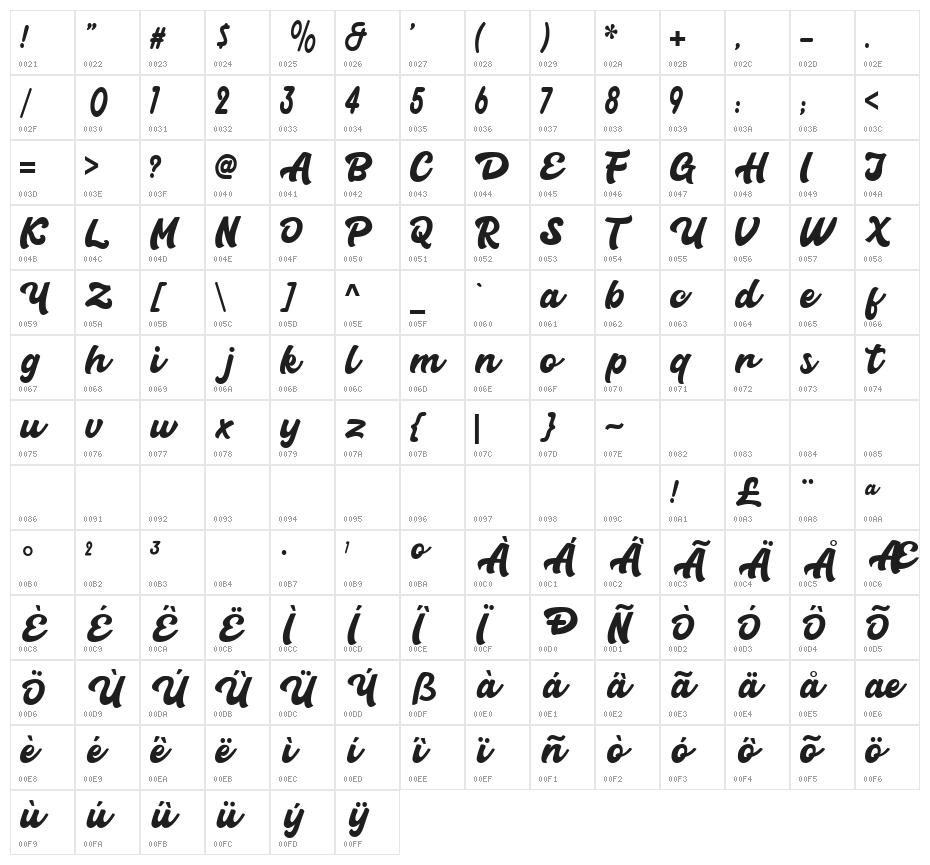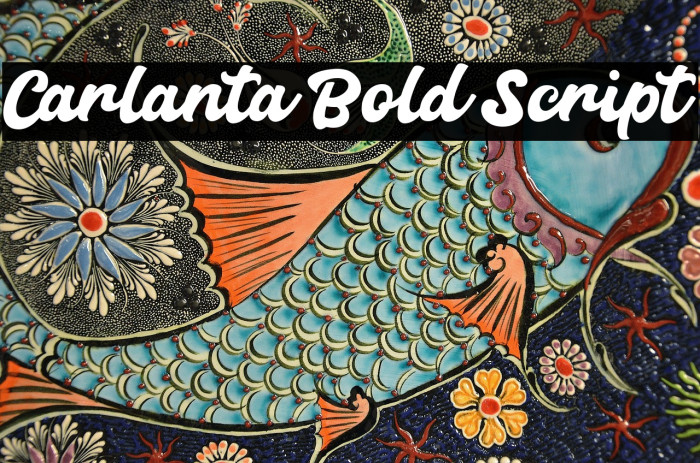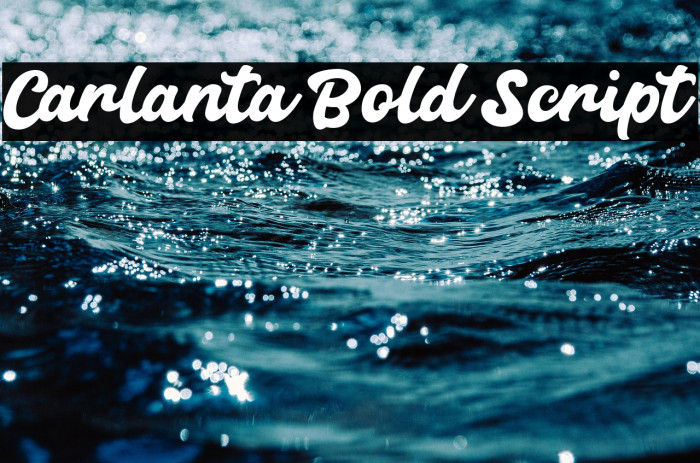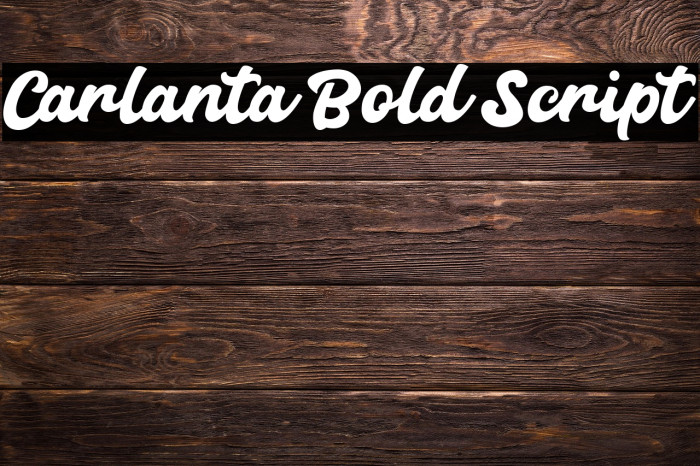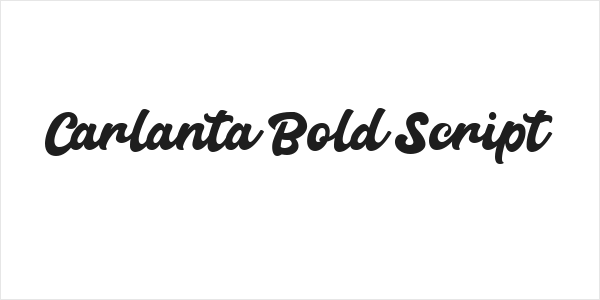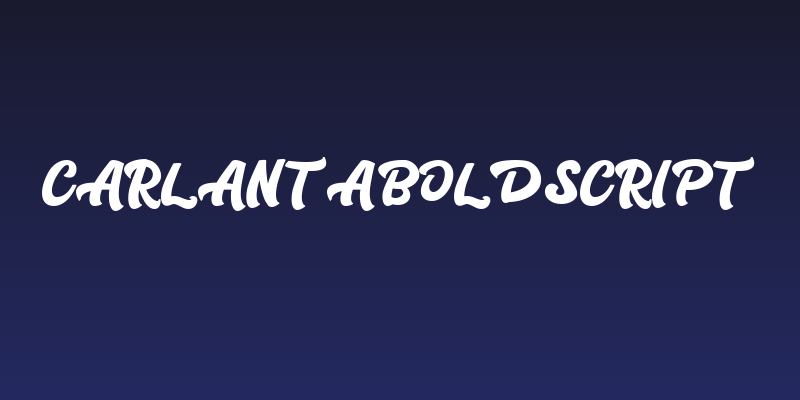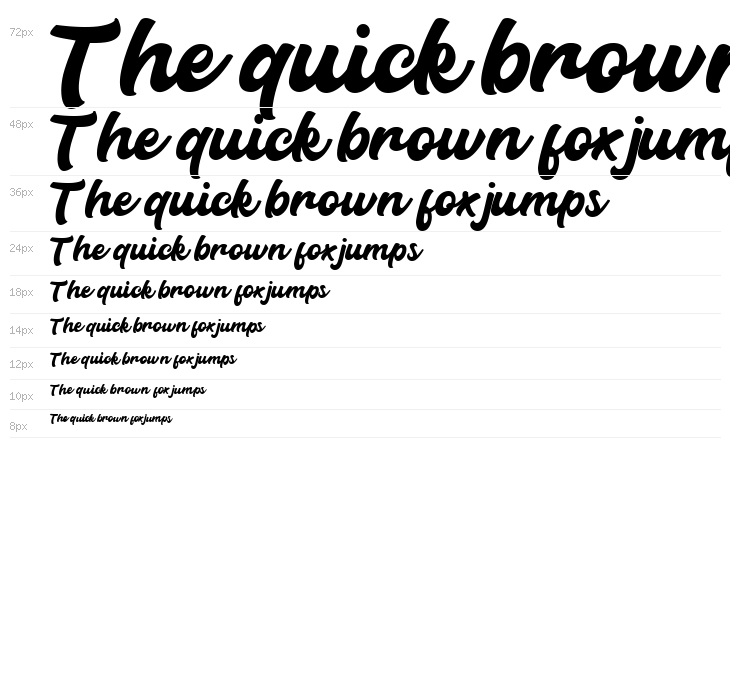
Carlanta Bold Script Font
Carlanta Bold Script Description
This font features a bold and flowing script style, characterized by its smooth, cursive strokes and elegant curves. The uppercase letters are slightly more structured, maintaining a consistent height, while the lowercase letters exhibit a more fluid and connected appearance, enhancing the script's overall cohesiveness. The numerals and special characters follow the same stylistic approach, ensuring uniformity across all glyphs. The bold weight of the font adds a sense of strength and presence, making it suitable for impactful designs.